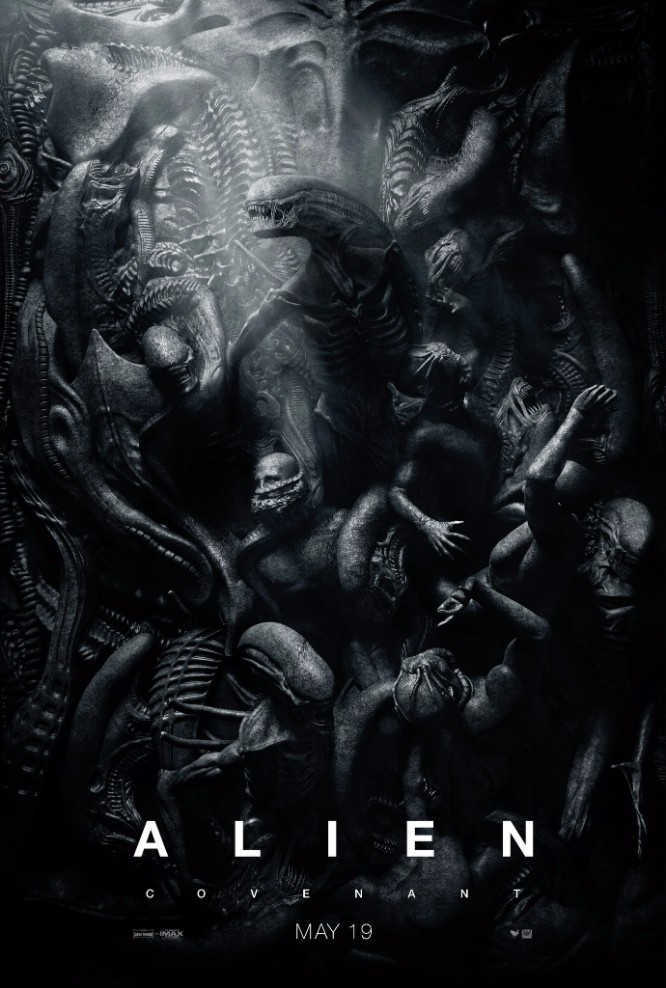
Alien: Covenant Font
Fonts in UseAlien: Covenant is a science-fiction horror film directed by Ridley Scott and released in 2017. The movie follows the crew of a colonization spaceship who discover a dangerous threat on a seemingly paradise-like planet.
The poster for the movie features a grotesque sans serif font that bears resemblance to Helvetica Bold or Nimbus Sans. To replicate the logo, one could also opt for Arial Bold.